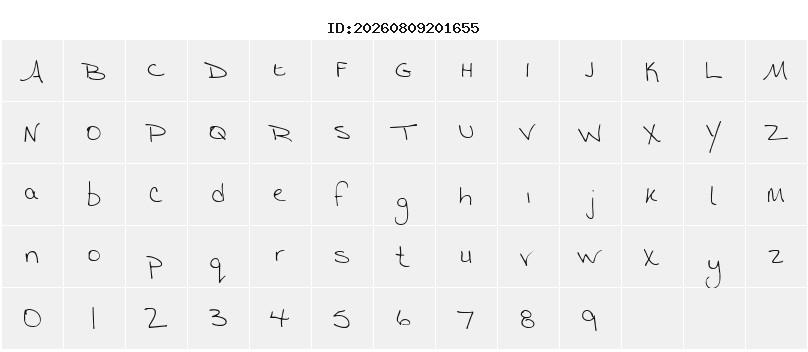
Pam's Hand Preview
• Font Name: Pam's Hand
• Full Font Name: Pam's Hand
• Character Count: 74
• Designer: Pamela - fonted by Ellinor
• Description: This font is made out of Pamela's handwriting... I did it for free you can get one to! Just visit Font Garden. If you find any use for this font I'd love to know :) Check out my hompage for more fonts!